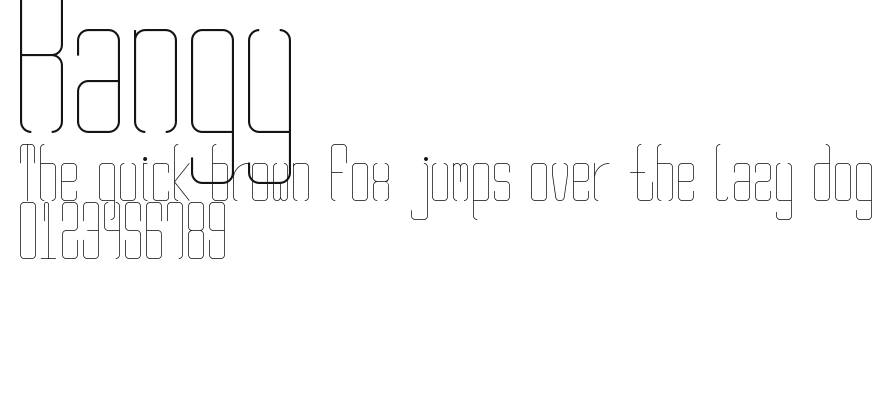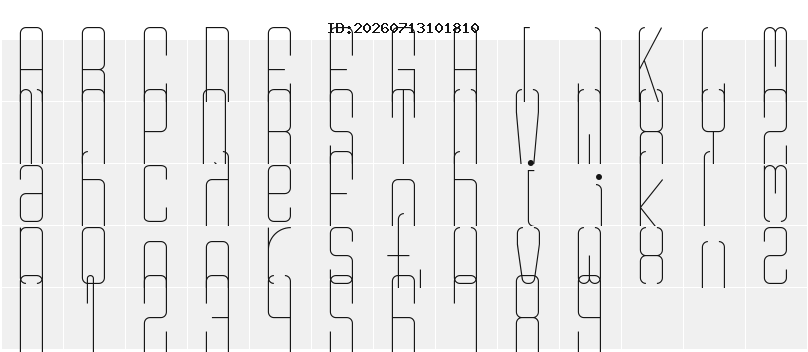
Rangy Preview
• Font Name: Rangy
• Font ID: Rangy:Version 1.00
• Full Font Name: Rangy
• Version: Version 1.00 April 8, 2016, initial release
• PostScript Name: Rangy
• Character Count: 242
• Designer: M Salman Shahzad
About Rangy.ttf
Rangy.ttf is a modern, elegant sans-serif font designed for ultimate readability and visual harmony. Perfect for branding, headlines, web design, and print materials.